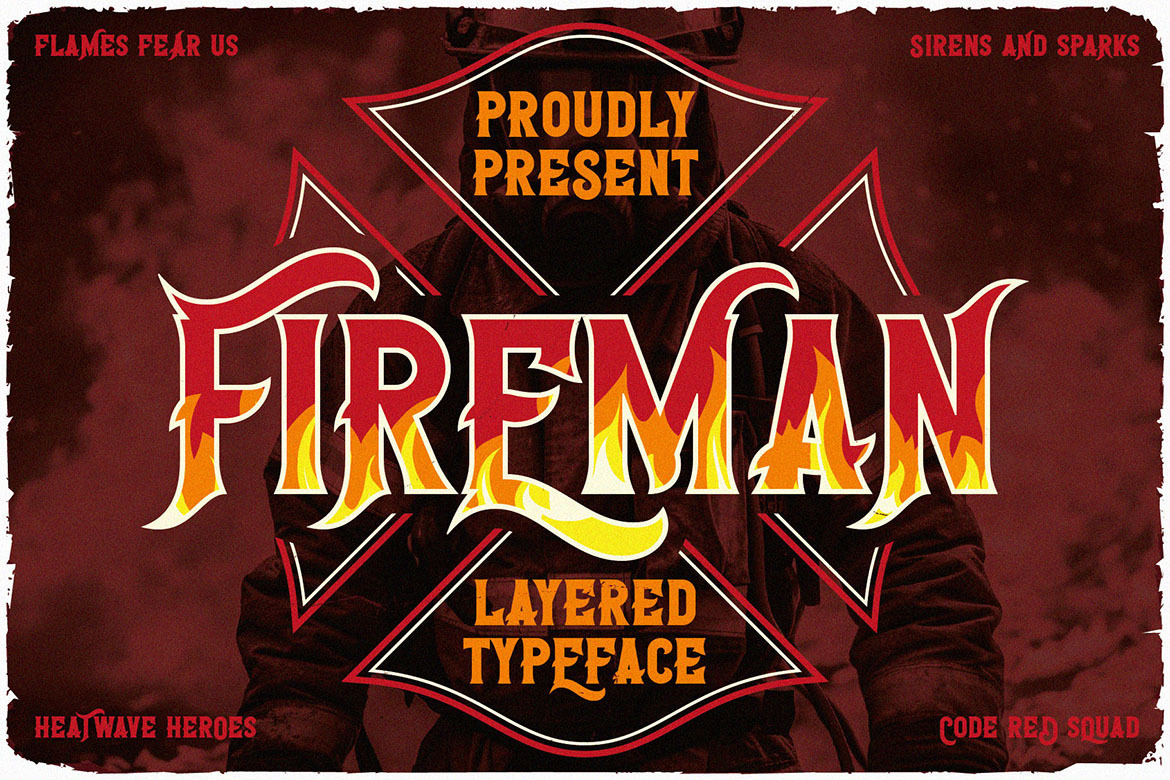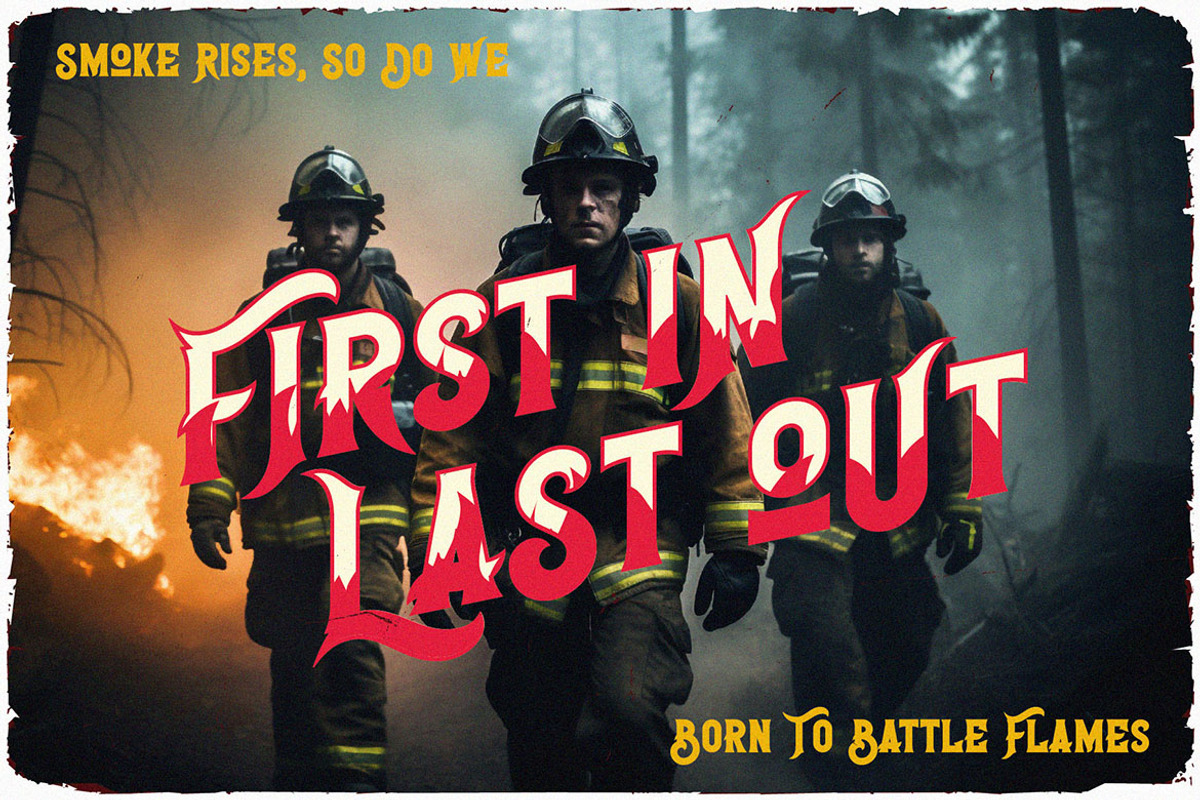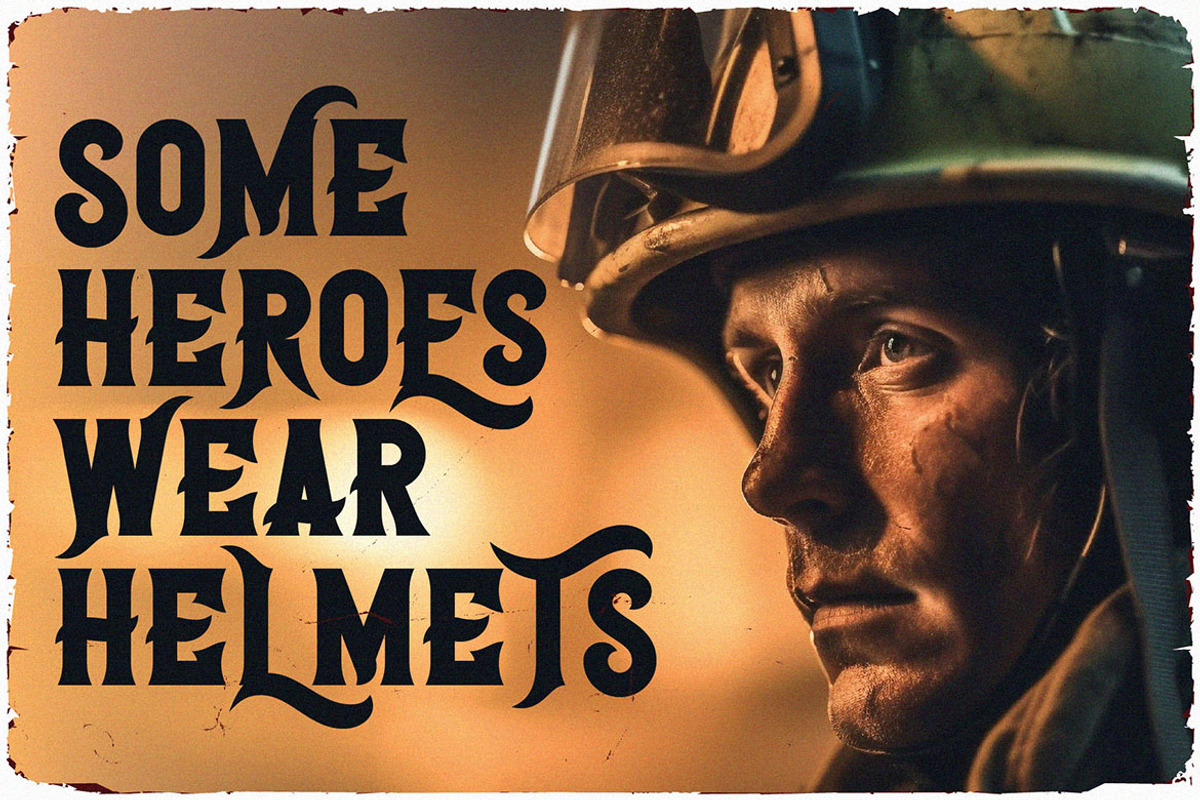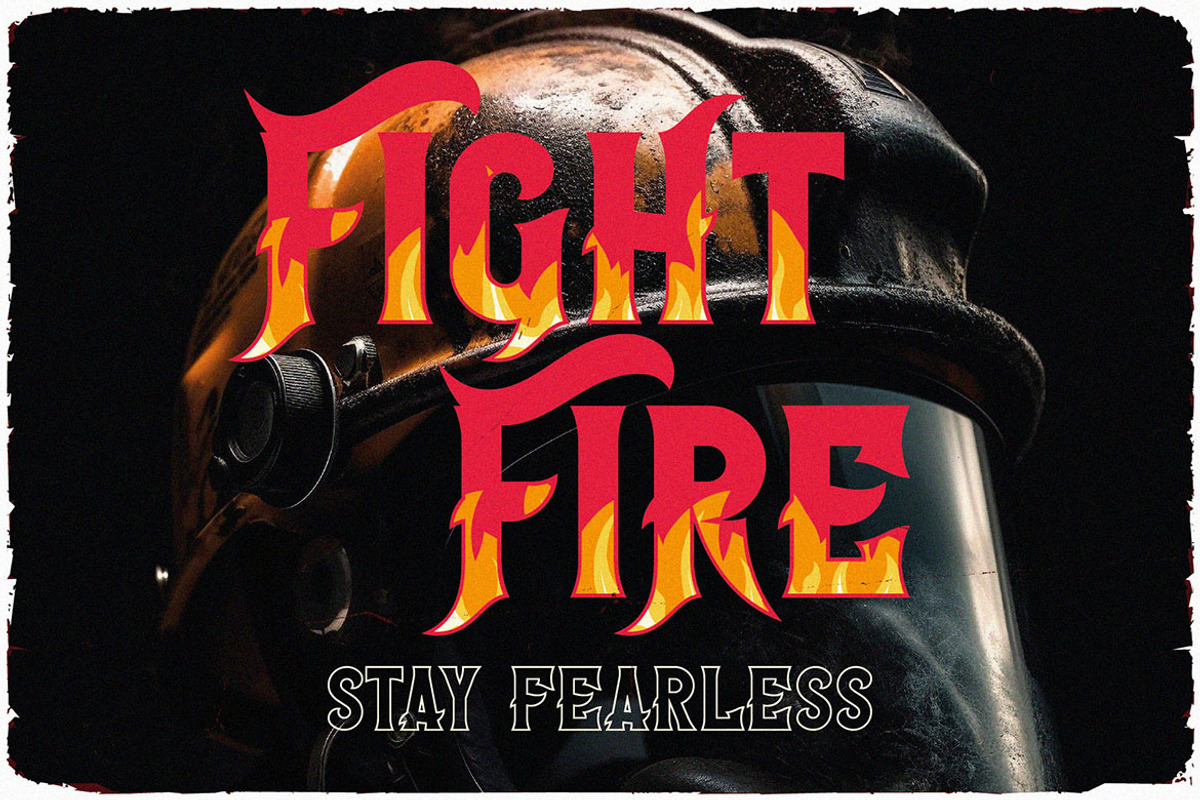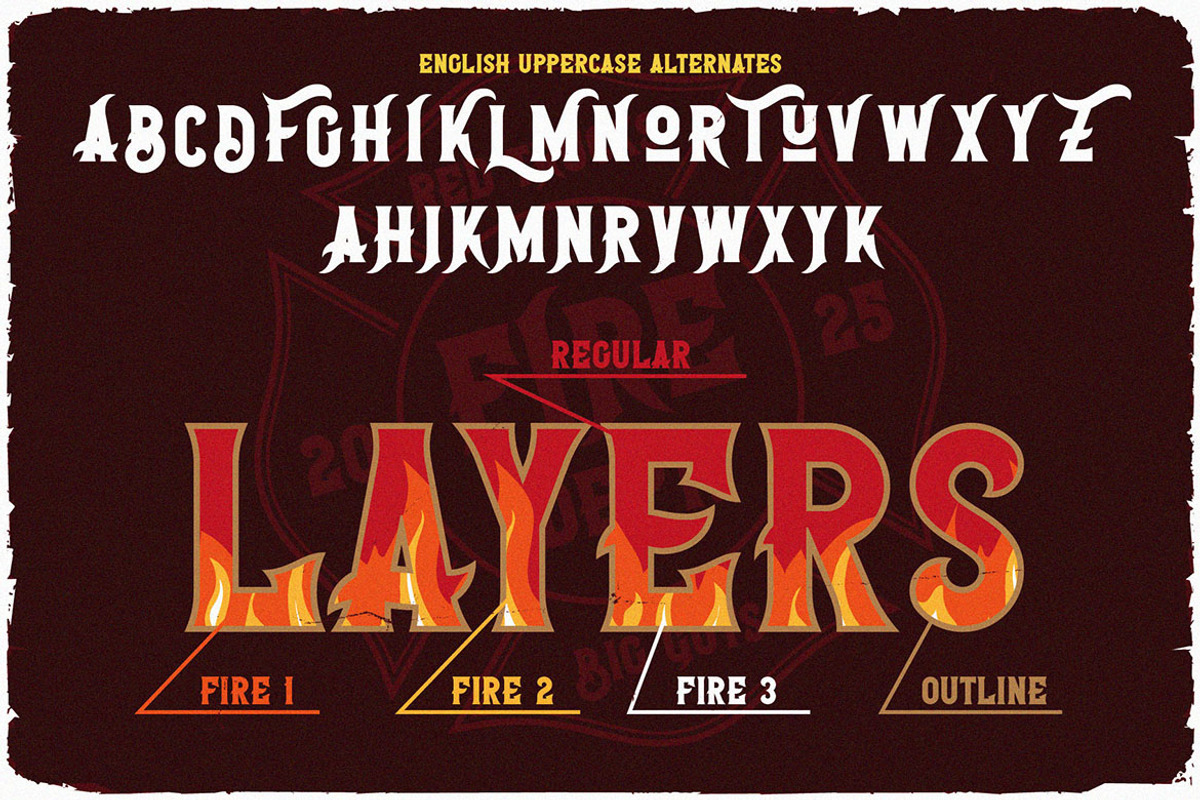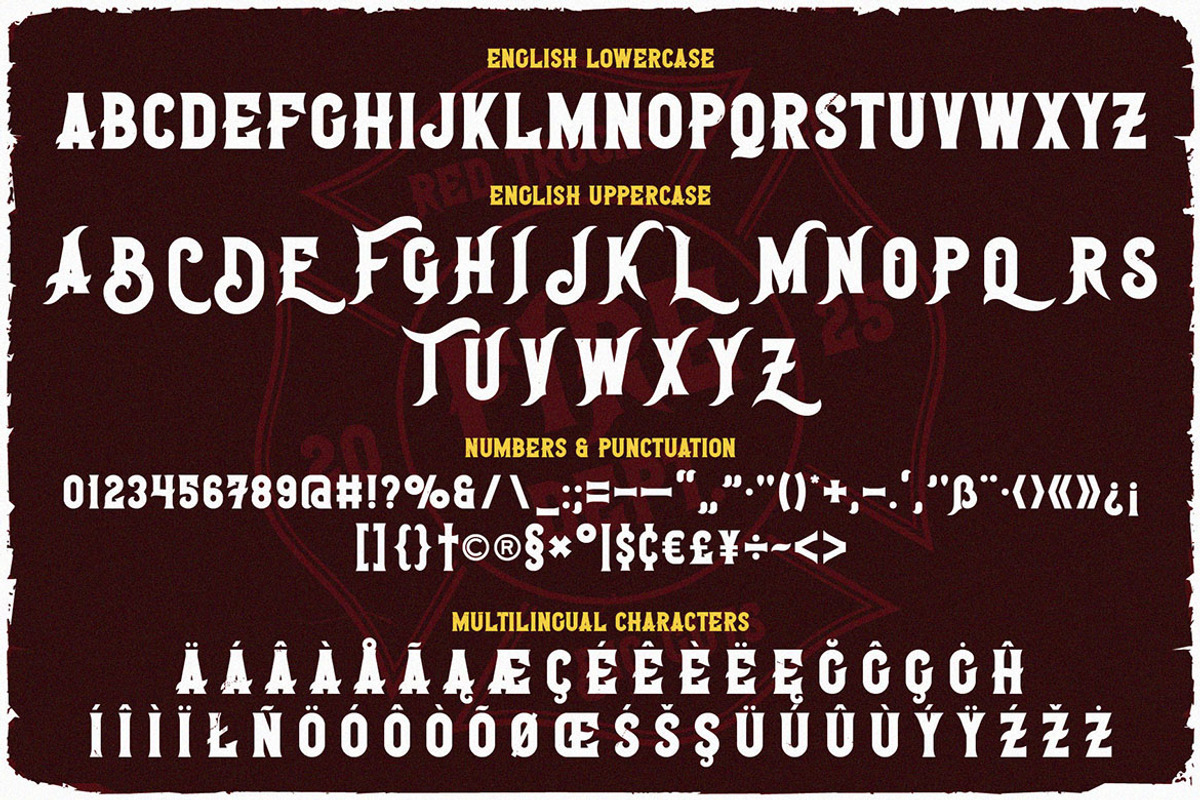
Fireman Layered Display Font
Unique, classic, bold, fantasy, retro, vintage, decorative & layered display semi serif font. Comes with multilingual support & alternates + 5 font layers - great for your new logo, monogram or branding project.
- 5 font versions - layered font with 5 layers (1 font - 1 layer effect)
- Multilingual support & alternates
- Great for your new logo, monogram or branding project